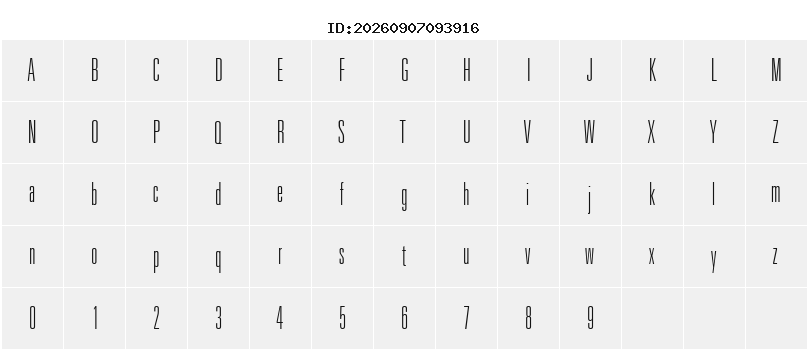
• Font Name: Univers LT 39 ThinUltraCn
• Full Font Name: Univers LT 39 Thin Ultra Condensed
About Univers LT 39 ThinUltraCn.ttf
Univers LT 39 ThinUltraCn.ttf is a modern, elegant sans-serif font designed for ultimate readability and visual harmony. Perfect for branding, headlines, web design, and print materials.